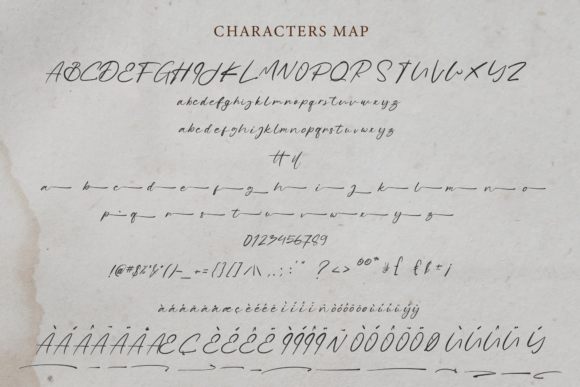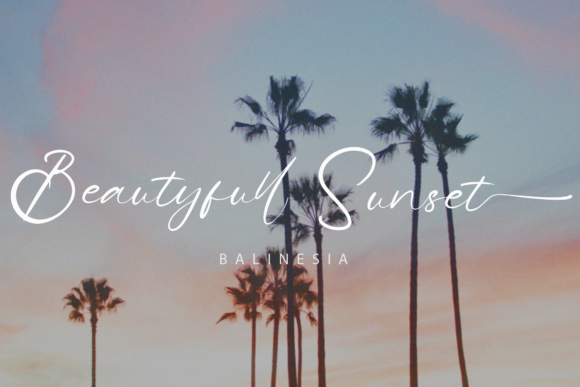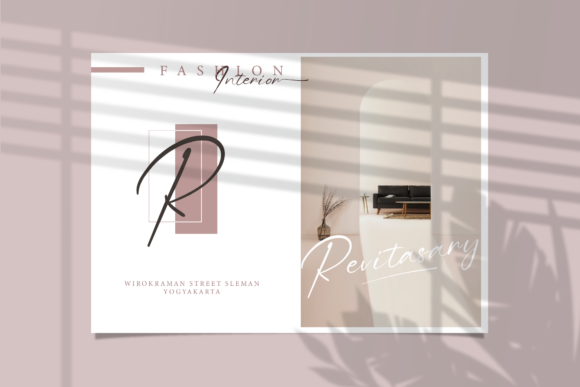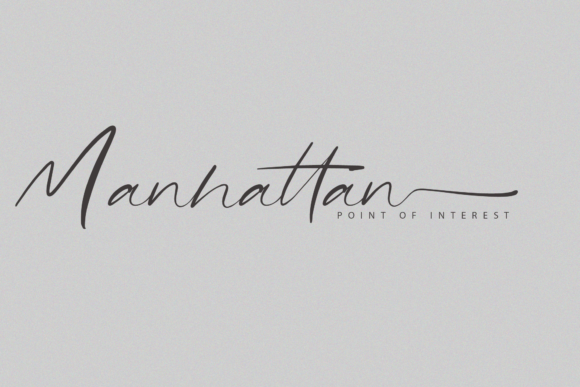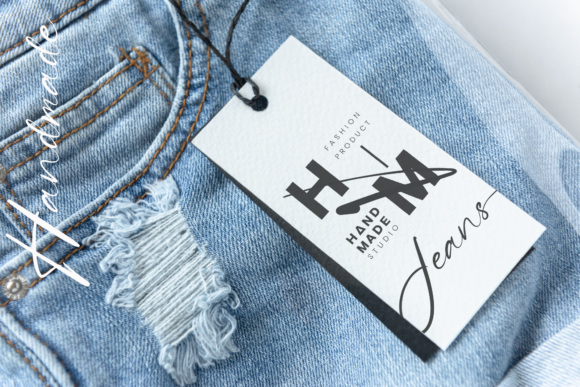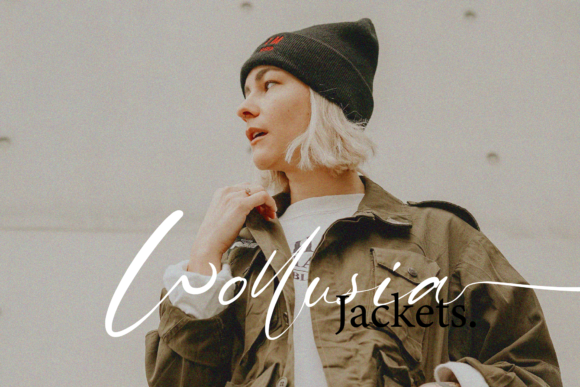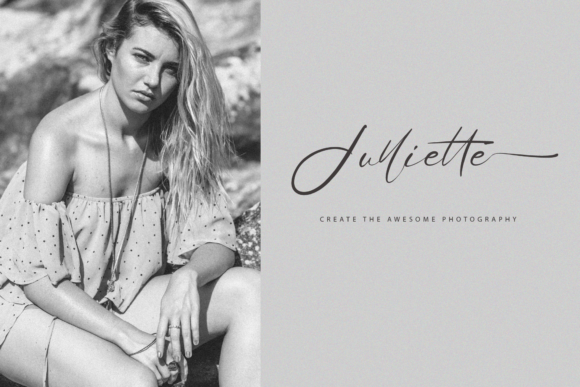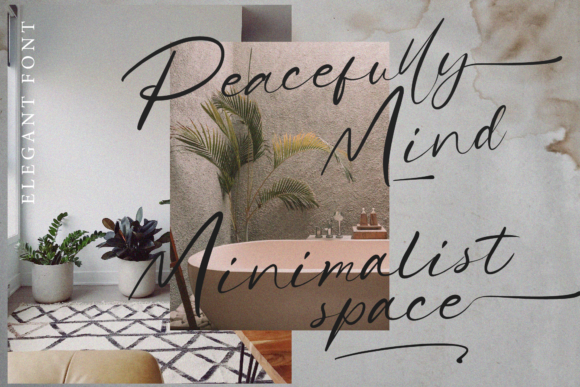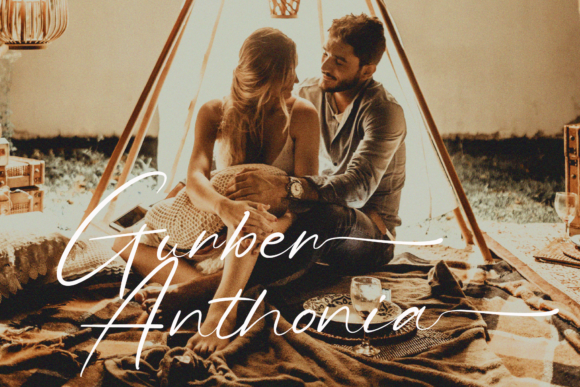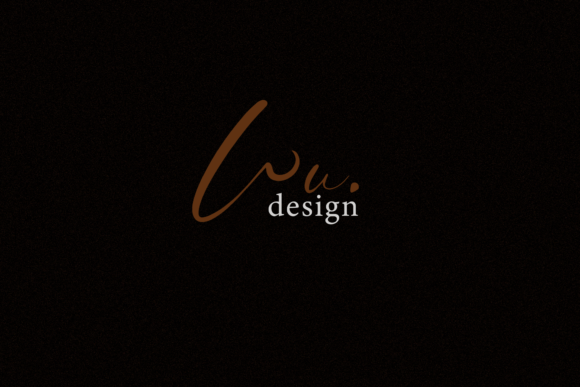
Pretty Rosse Font
About Pretty Rosse Font
Pretty Rosse is a cute and casual handwritten font with an incredibly friendly feel. Whether you’re looking for fonts for Instagram or calligraphy scripts for DIY projects, Pretty Rosse will turn any creative idea into a true piece of art!